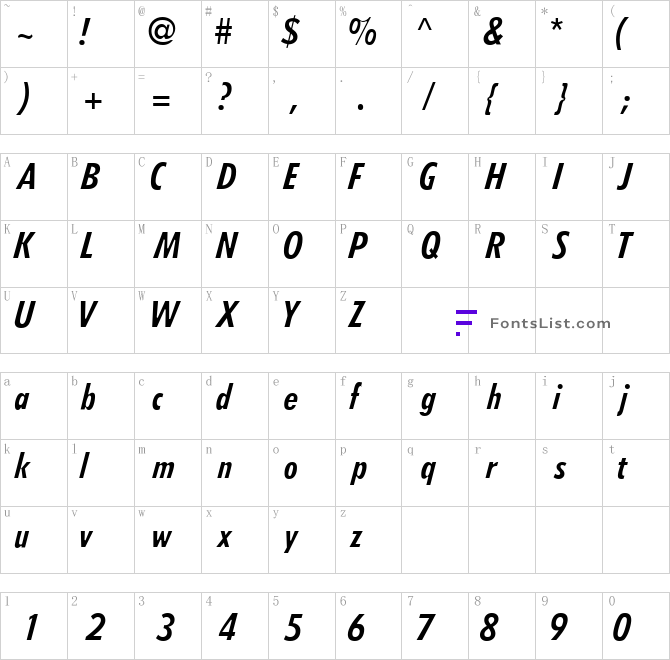
- Font Name:ArcheCondSSi
ArcheCondSSi-Italic.ttf is a very beautiful artistic font, ArcheCondSSi-Italic.ttf is widely used in the design and printing of various books and pictures,ArcheCondSSi-Italic.ttf has a strong visual impact,ArcheCondSSi-Italic.ttf is a commonly used font in newspapers, magazines and books, and is used in posters, e-commerce Poster design, store design, logo design, font design and other fields.ArcheCondSSi-Italic.